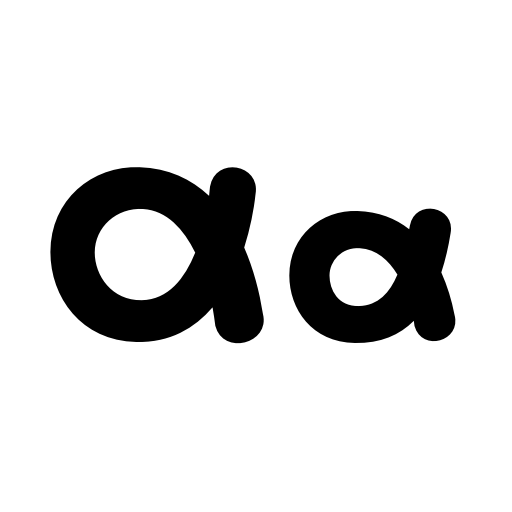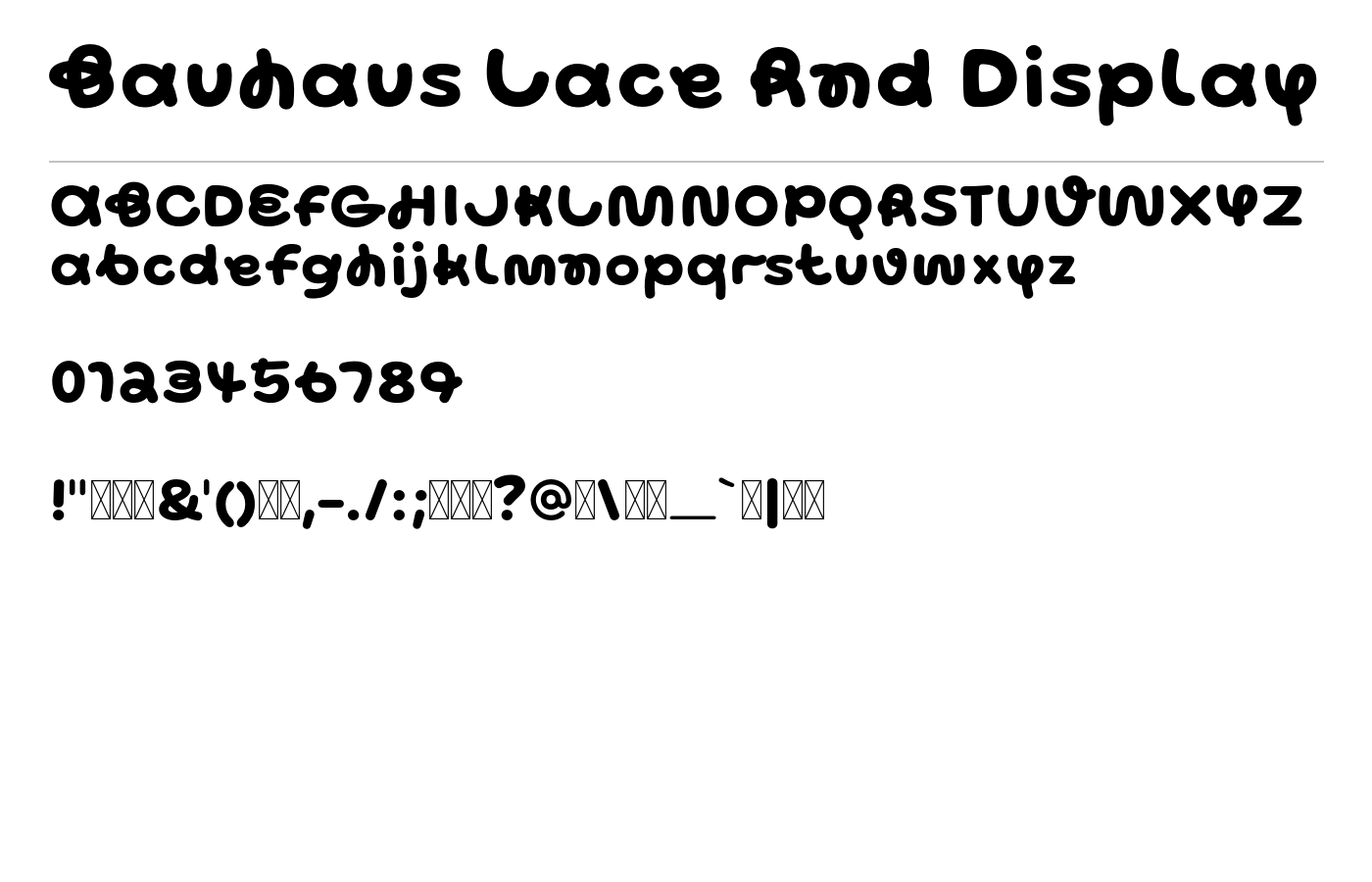
Bauhaus Lace Rnd Display is a playful, rounded display font with a bold, chunky weight and uniform stroke width that gives it a friendly and approachable feel. Its quirky letterforms and high x-height make it ideal for eye-catching headlines, logos, and creative projects that want to convey fun, creativity, and a retro-modern vibe. This font works best in playful branding, posters, and editorial designs where a unique and informal tone is desired.
Bauhaus Lace Rnd Display Font
About Bauhaus Lace Rnd Display Font
| Font family | Bauhaus Lace Rnd Display Font |
| Designer | Saskia Ketz |